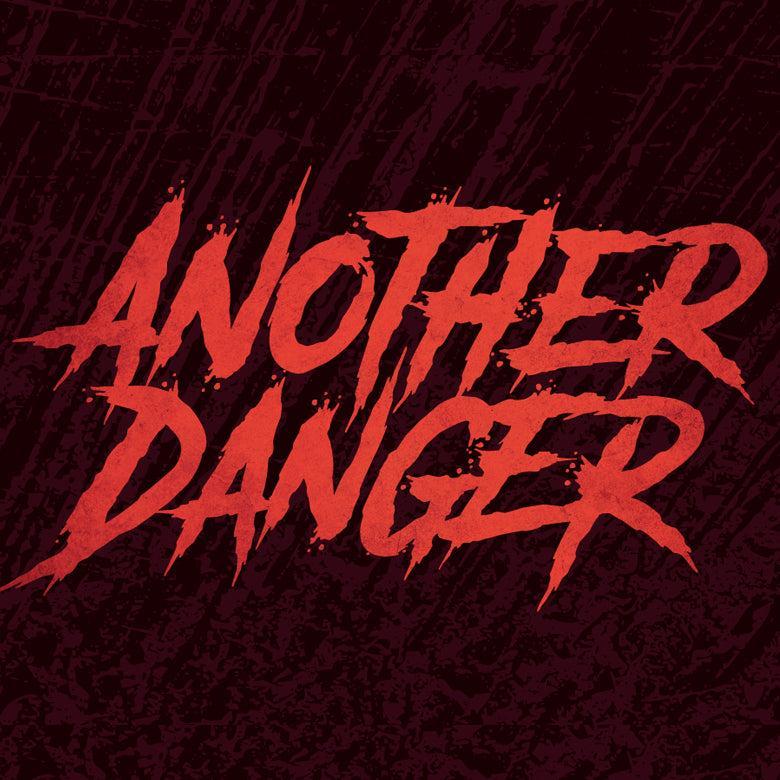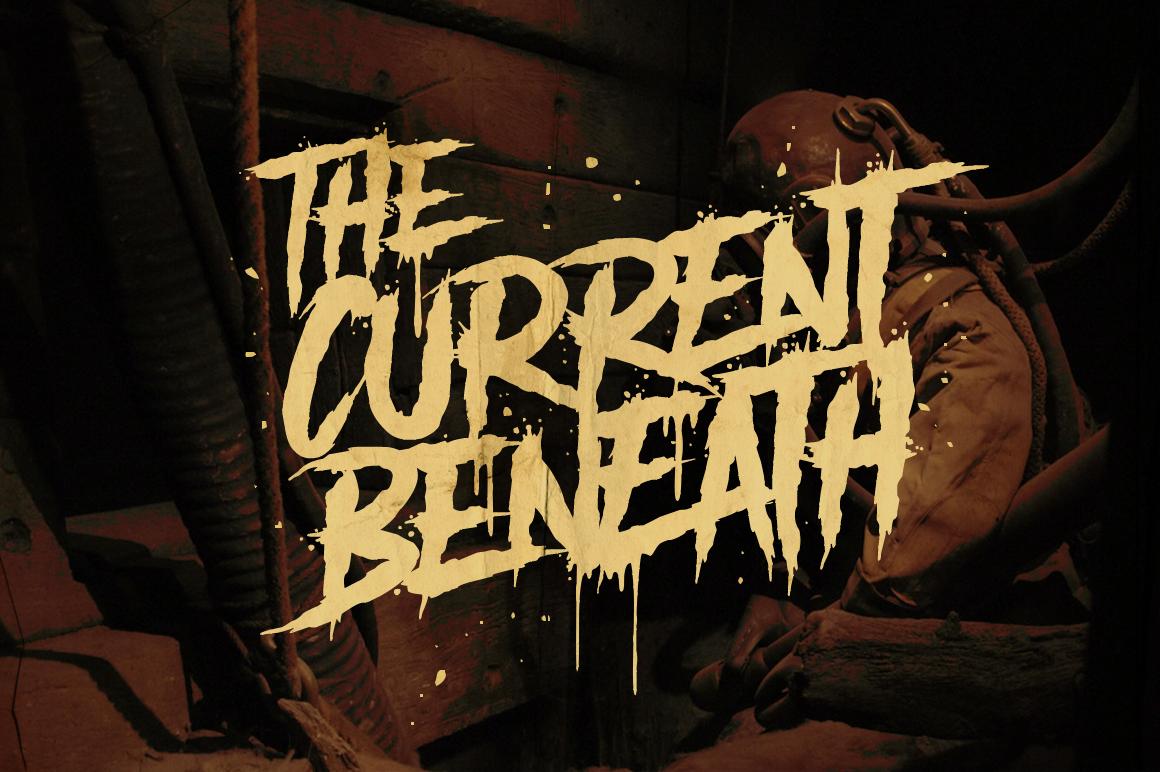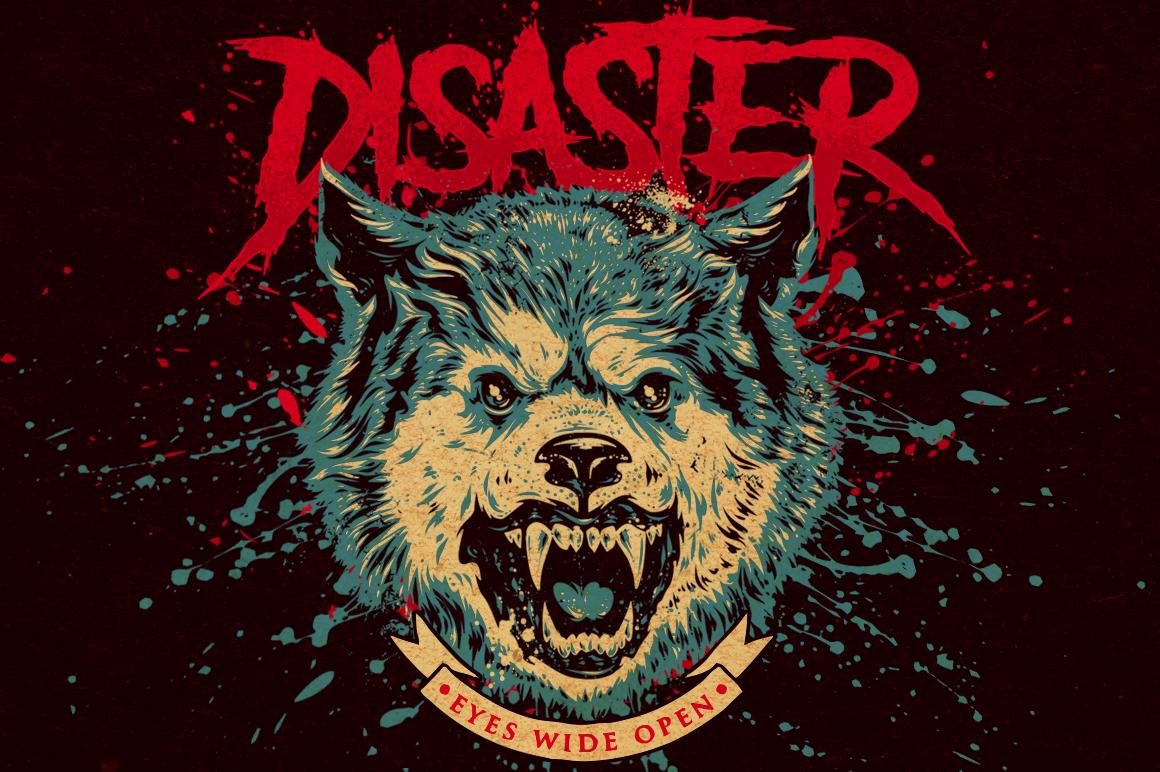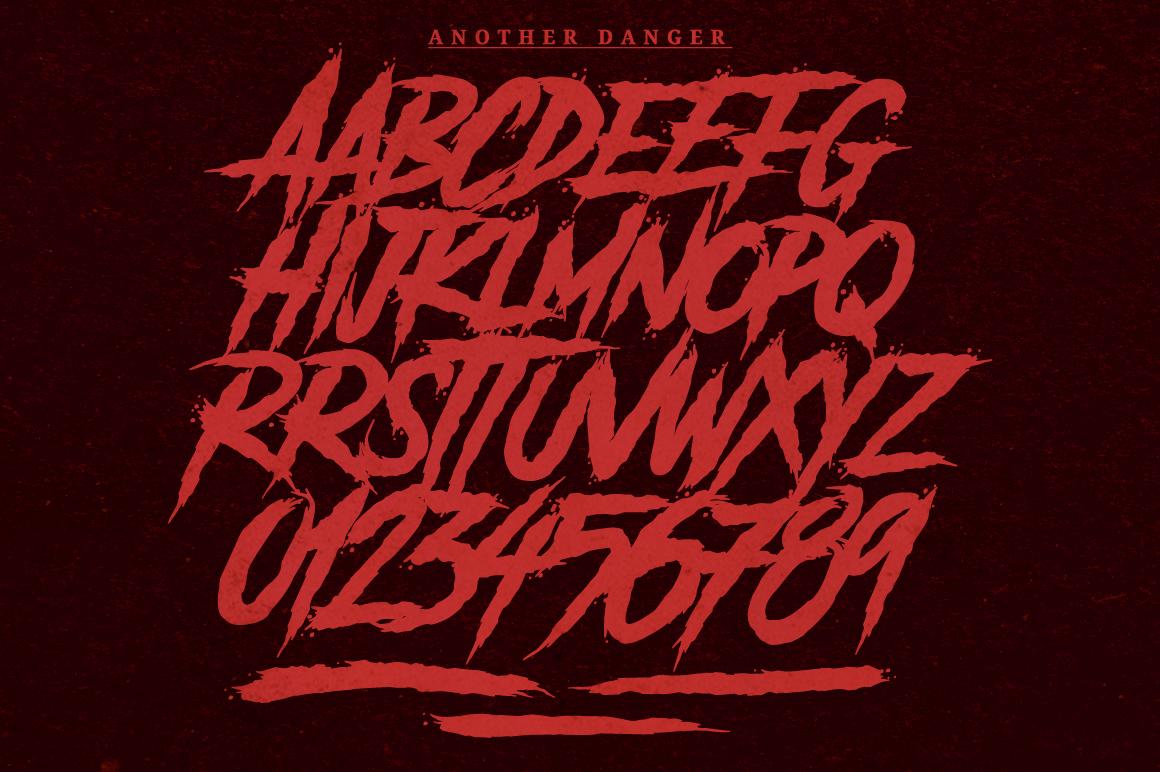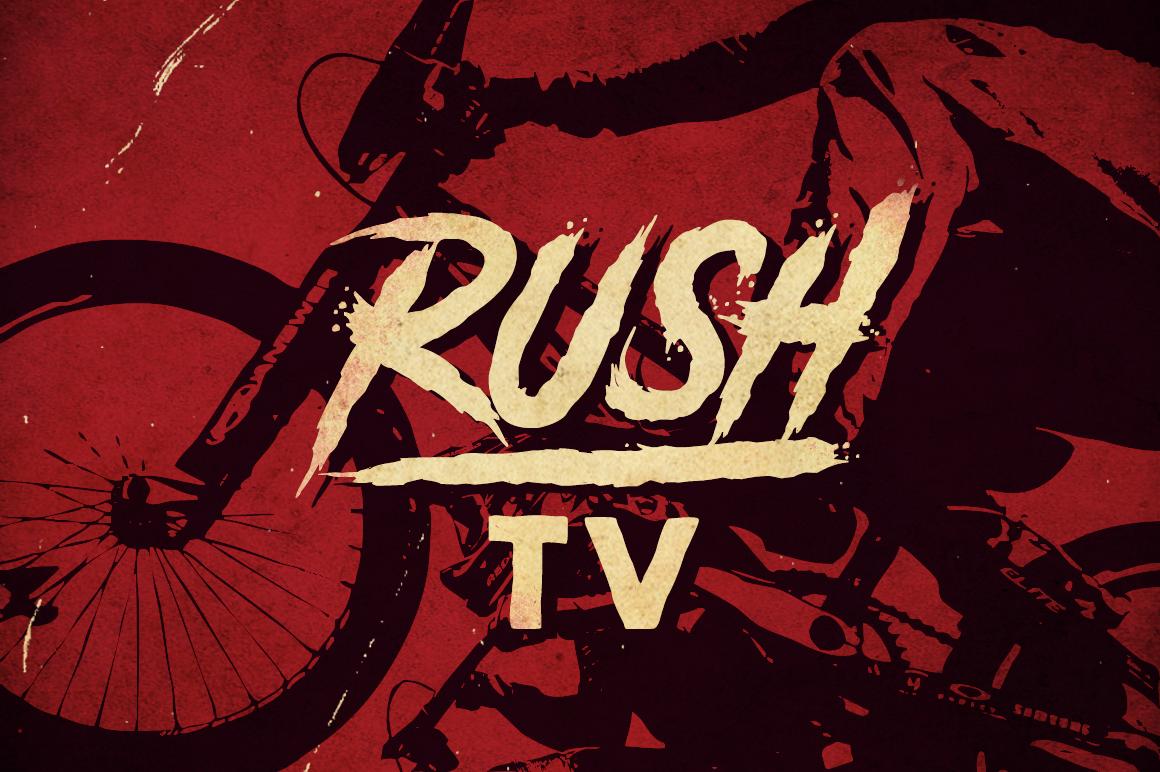
Another Danger Font
The kind of typeface that proves its usefulness from time to time. With unruly inks delivered to every glyph produces the enigma to it. Bring in the hardcore vibe, the retro feel, the artworks of chaos. Splatter your creativity with Another Danger!
Another Danger Font is a versatile typeface featuring both standard and slanted versions in OTF and TTF formats. It offers a unique design with a gritty, retro aesthetic suitable for various horror and thriller-themed projects.